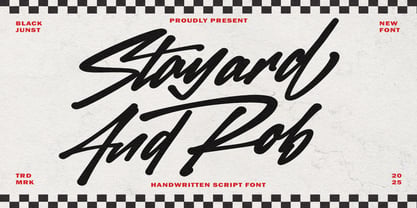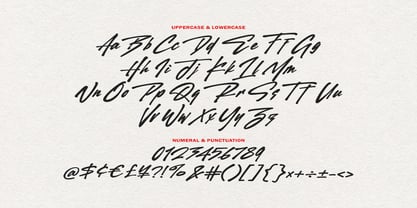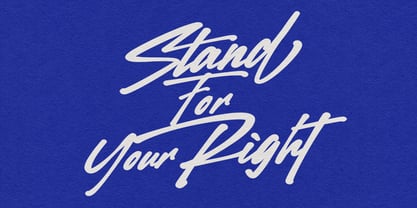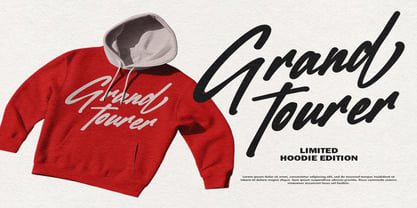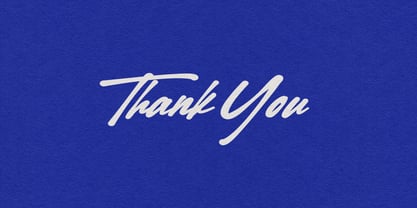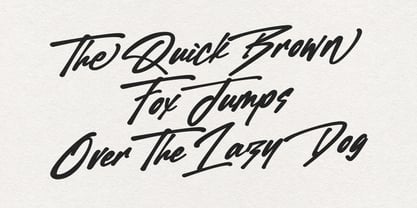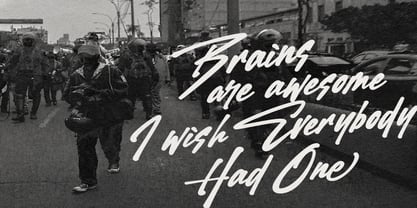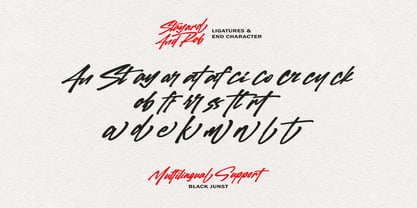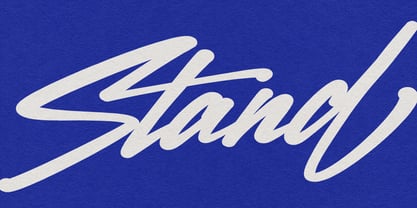
Stayard and Rob
by Black Junst
The Stayard and Rob Font Family was designed by Maulana Semar and published by Black Junst. Stayard and Rob contains 1 styles. More about this family
Stayard and Rob is a bold handwritten brush script font that blends the energy of street-style lettering with expressive brush strokes and a natural handcrafted character. Designed to bring confidence, motion, and personality to your work, this font is perfect for logos, apparel branding, posters, quotes, and social media designs. Each letter features natural curves, bold strokes, textured edges, and subtle irregularities that create an authentic handmade brush lettering look.
Stayard And Rob offers uppercase and lowercase letters, alternates, ligatures, and multilingual support, making it versatile for a wide range of design projects. Whether you’re working on a bold sports logo, a trendy clothing label, or expressive typography for packaging, this font brings a cool modern edge with an urban flair and authentic brush character.
Use Stayard And Rob to create powerful visual identities, handwritten signatures, apparel graphics, posters, branding, or energetic typographic compositions that stand out. It’s ideal for creative professionals who want their designs to have a stylish, confident, and authentic handmade feel.
Bring energy and attitude to your next project with Stayard And Rob — a bold handwritten brush script that speaks with confidence, creativity, and an authentic handmade edge.